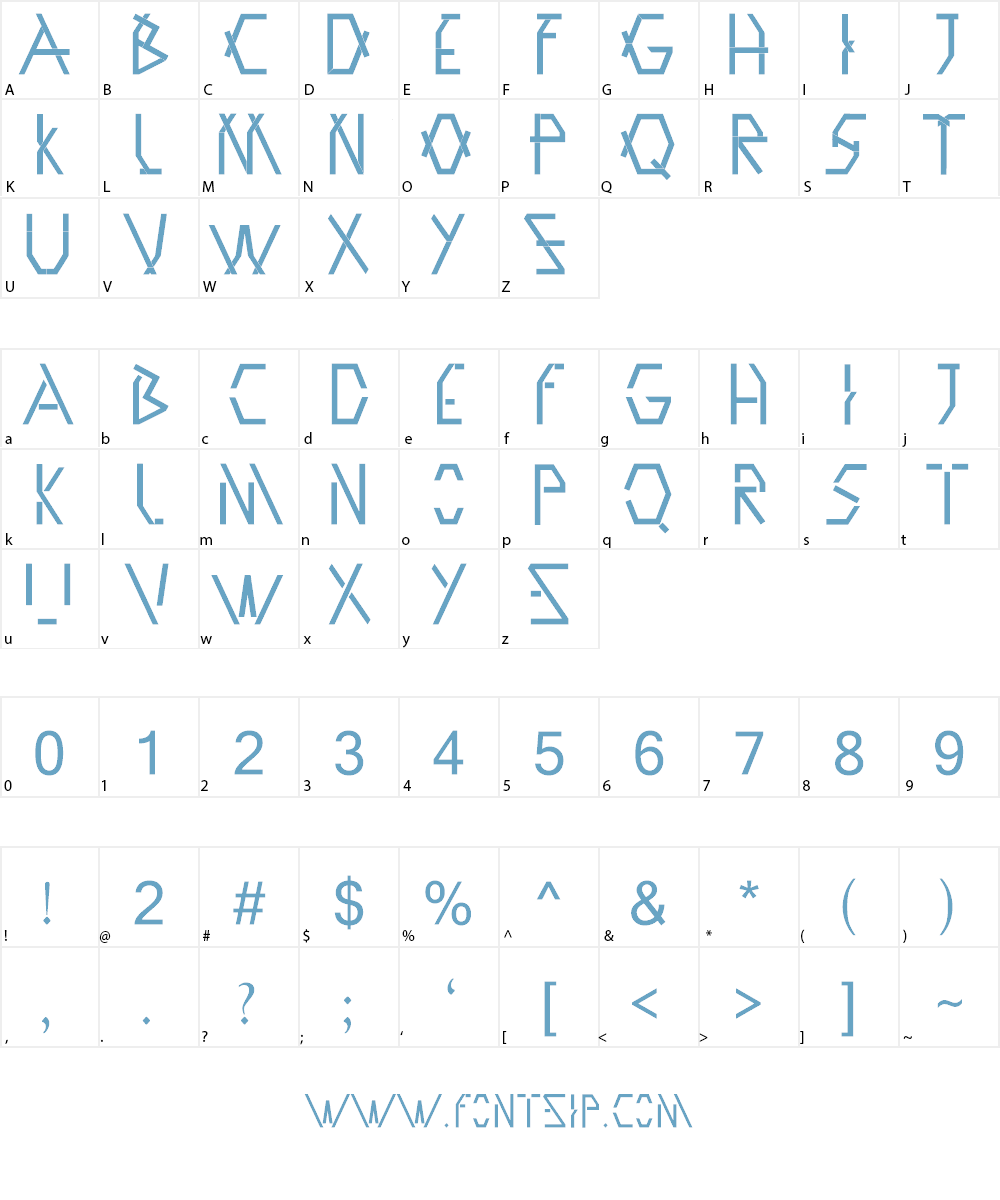
This typography is designed simply to make beautiful designs with it,
is composed only of two types of capitals: a compact one with large spaces and carefully placed.